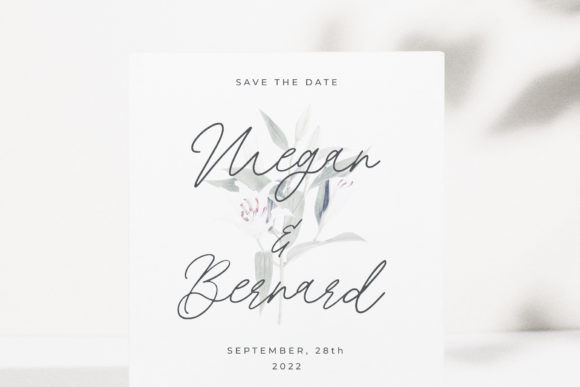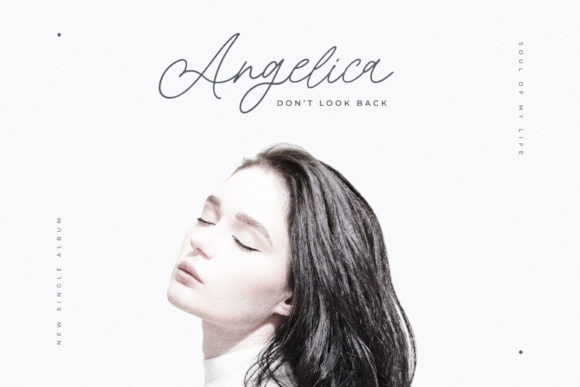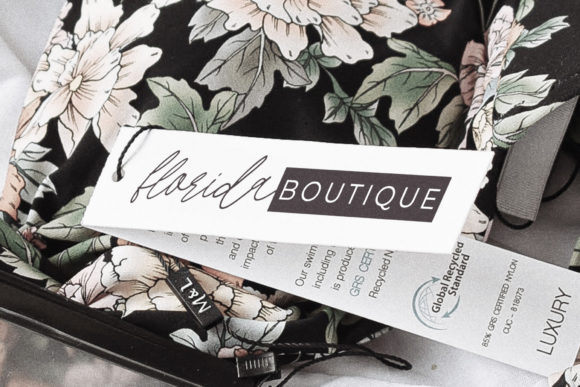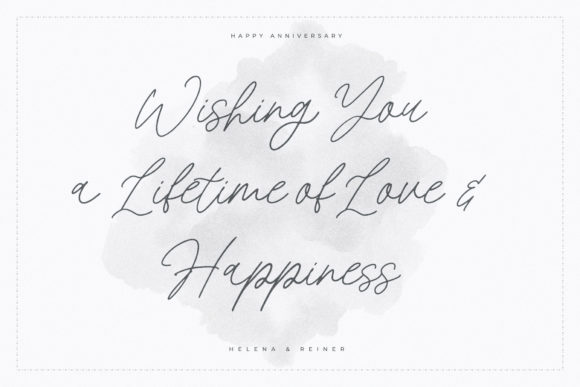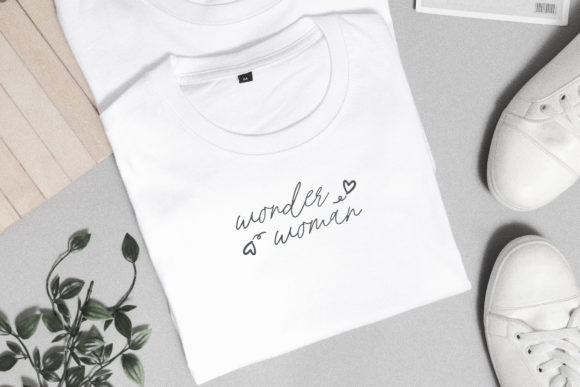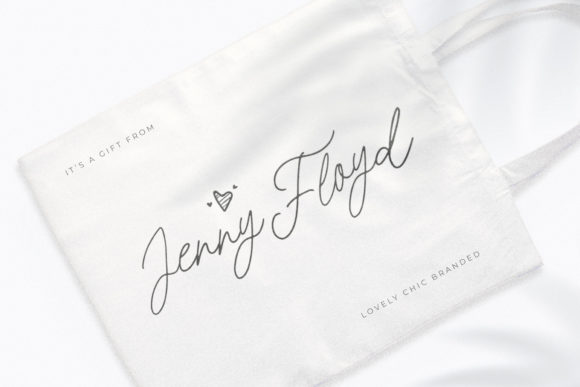
Chemistry Font: Elevate Your Designs with Elegance and Sophistication
Are you a designer or crafter looking for a font that exudes elegance and sophistication? Look no further than Chemistry Font, a stylish script with a natural flow and beautiful characters. This versatile font is perfect for a wide range of design projects, from wedding invitations and labels to logos, branding, craft projects, and quotes.
The Beauty of Chemistry Font
Chemistry Font is a script font that boasts a unique and captivating charm. Its natural flow and beautiful characters make it perfect for designs that require a touch of elegance and sophistication. The font’s stylish and refined appearance is sure to elevate your designs and leave a lasting impression on your audience.
Uses of Chemistry Font
Chemistry Font is an incredibly versatile font that can be used for a wide range of design projects, including:
- Wedding Invitations: Create beautiful and elegant wedding invitations that set the tone for a special day.
- Labels and Packaging: Add a touch of sophistication to your product labels and packaging with Chemistry Font.
- Logos and Branding: Use Chemistry Font to create stunning logos and branding materials that reflect your brand’s personality and style.
- Craft Projects: Add a personal touch to your craft projects, such as handmade cards, gift tags, and scrapbooking pages.
- Quotes and Typography: Use Chemistry Font to create inspiring and beautiful typography quotes that showcase your creativity.
Why Choose Chemistry Font?
So, why choose Chemistry Font for your design projects? Here are just a few reasons:
- Elegant and Sophisticated: Chemistry Font exudes elegance and sophistication, making it perfect for designs that require a touch of refinement.
- Versatile: This font can be used for a wide range of design projects, from wedding invitations to craft projects.
- Easy to Read: Chemistry Font is clear and easy to read, making it perfect for designs that require a high level of legibility.
- Unique and Captivating: This font has a unique and captivating charm that will set your designs apart from the rest.
Tips for Using Chemistry Font
Here are a few tips for using Chemistry Font in your design projects:
- Pair with Other Fonts: Experiment with pairing Chemistry Font with other fonts to create a unique and visually appealing design.
- Use for Headlines and Titles: Use Chemistry Font for headlines and titles to add a touch of elegance and sophistication to your design.
- Add a Personal Touch: Use Chemistry Font to add a personal touch to your craft projects and make them extra special.
Chemistry Font is a stylish script font that is perfect for designers and crafters looking to add a touch of elegance and sophistication to their design projects. With its natural flow and beautiful characters, this font is sure to elevate your designs and leave a lasting impression on your audience. Whether you’re creating wedding invitations, labels, logos, or craft projects, Chemistry Font is a versatile and elegant choice that is sure to impress.